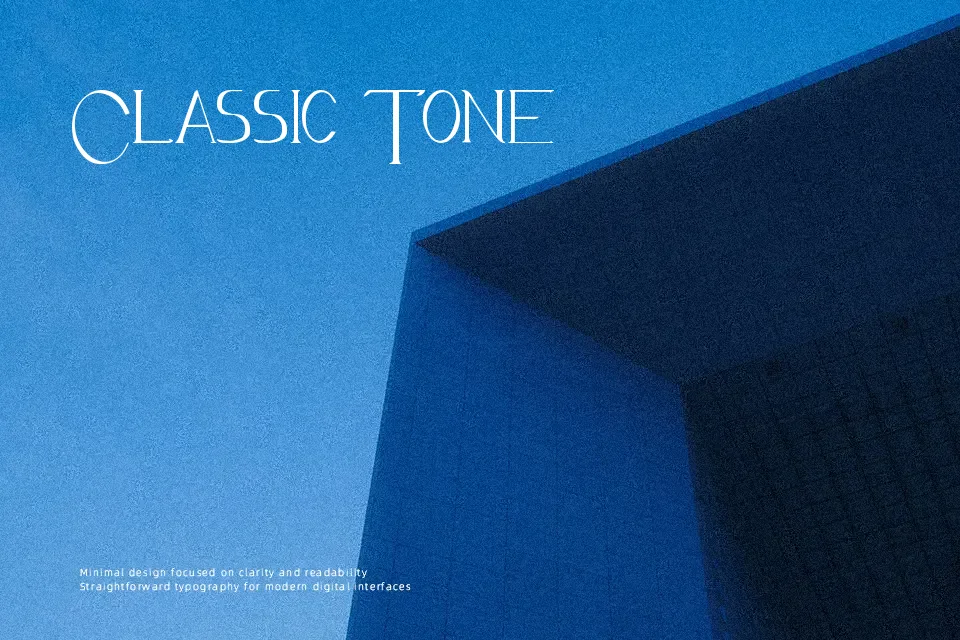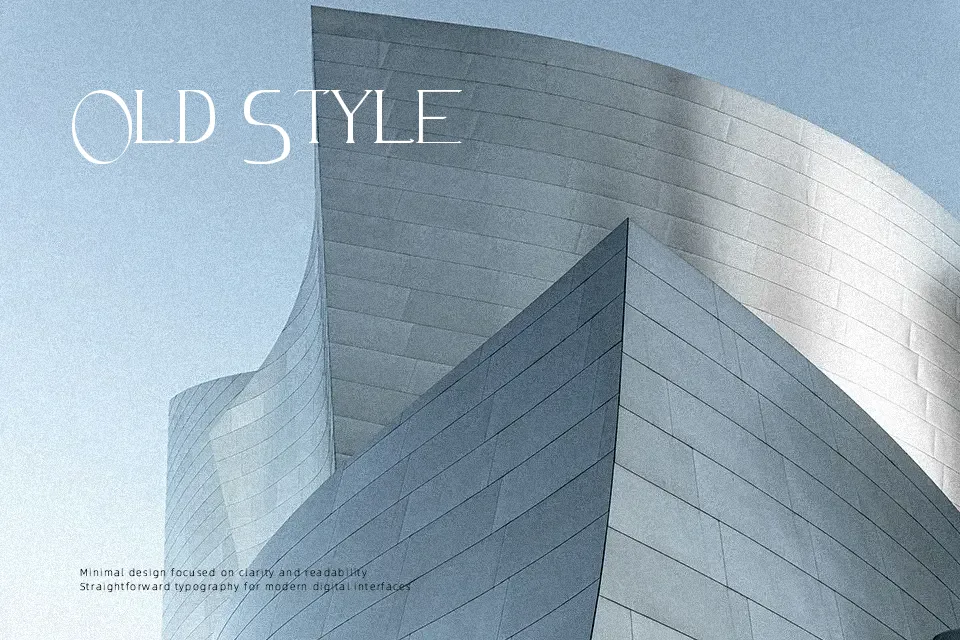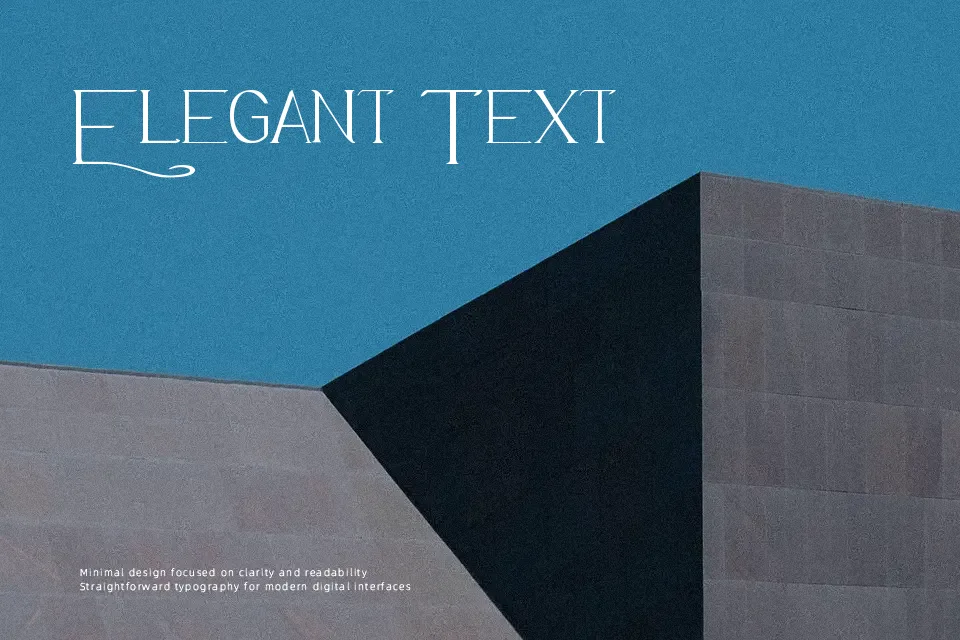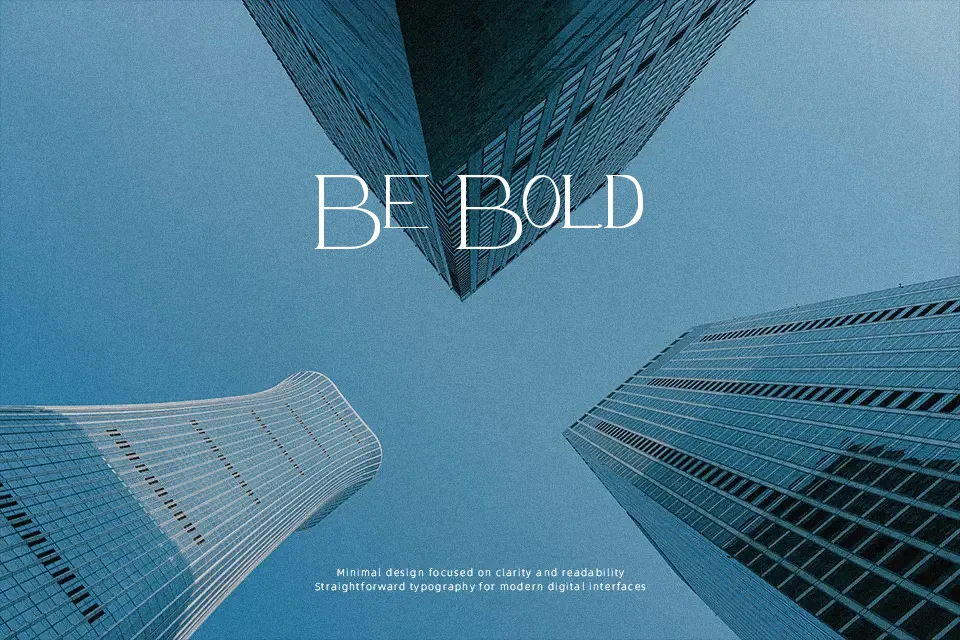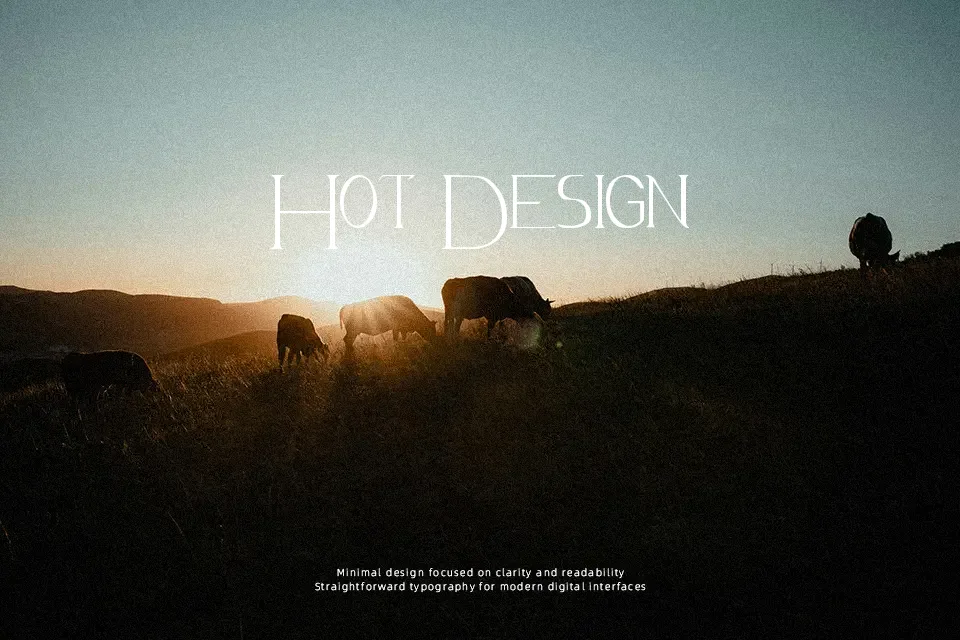
Avanti Font
Designed by Type Sailor
Avanti carries a certain quiet drama in its structure — elongated, high-contrast strokes paired with decorative curls that recall classic calligraphy updated for modern use. The letterforms feel deliberately ornate without tipping into excess, sitting somewhere between editorial refinement and boutique warmth. In practice, it reads well on single-line headlines, short logotype treatments, and large-format wedding stationery where the detail can breathe. The serif style leans vintage and feminine, making it a natural fit for labels, invitation suites, and lifestyle brand identities. That said, its decorative nature becomes a liability at small sizes or in body copy — the fine strokes collapse and legibility drops quickly. Designers working on dense layouts or corporate-facing materials will likely find it too stylized for practical use.
Best For:- Wedding invitation headers and stationery suites
– Boutique lifestyle or beauty brand wordmarks
– Editorial magazine title treatments
– Artisan product packaging labels
Not Ideal For:- Body text or multi-line paragraph copy
– Corporate reports or professional documentation
– Small-size print such as footnotes or captions
– Digital UI labels or navigation elements
Perfect for branding, editorial, and invitation, with a classic and decorative style.